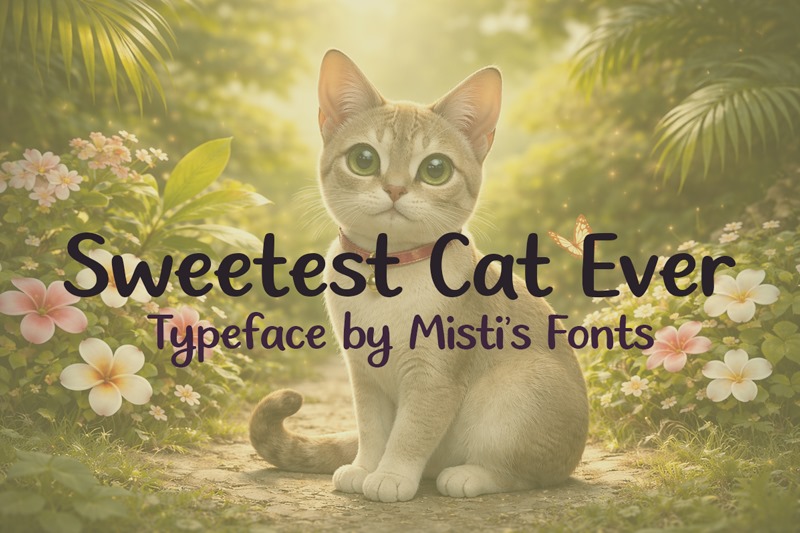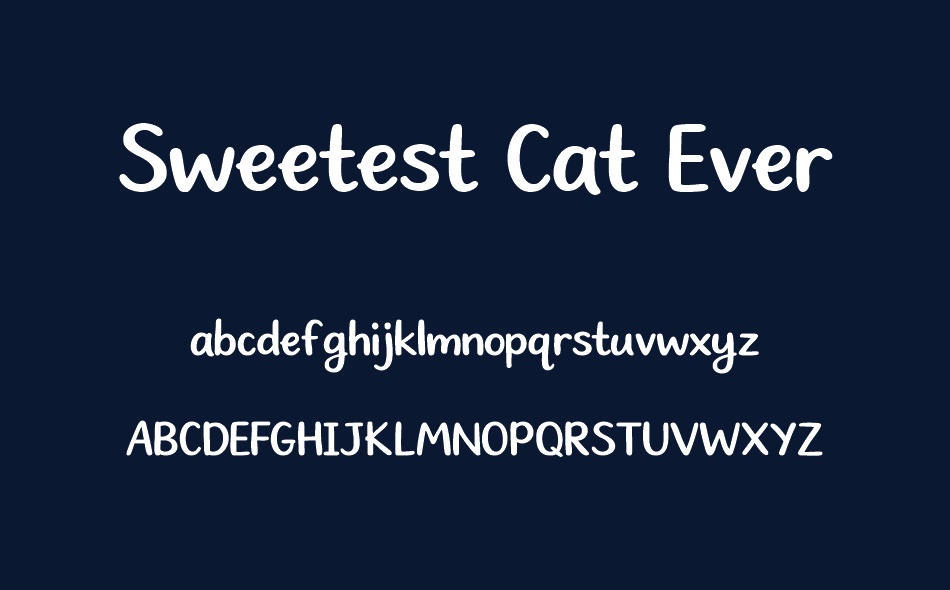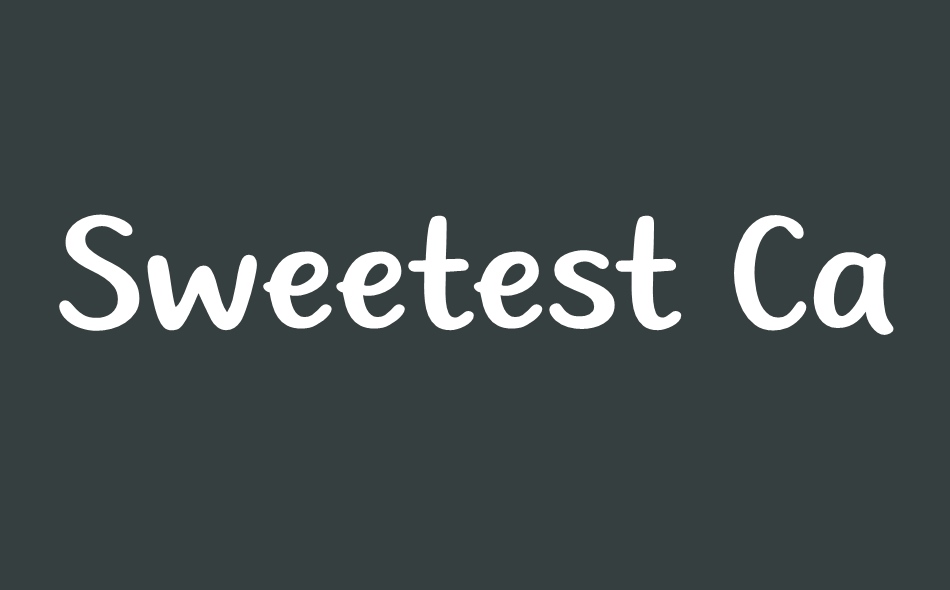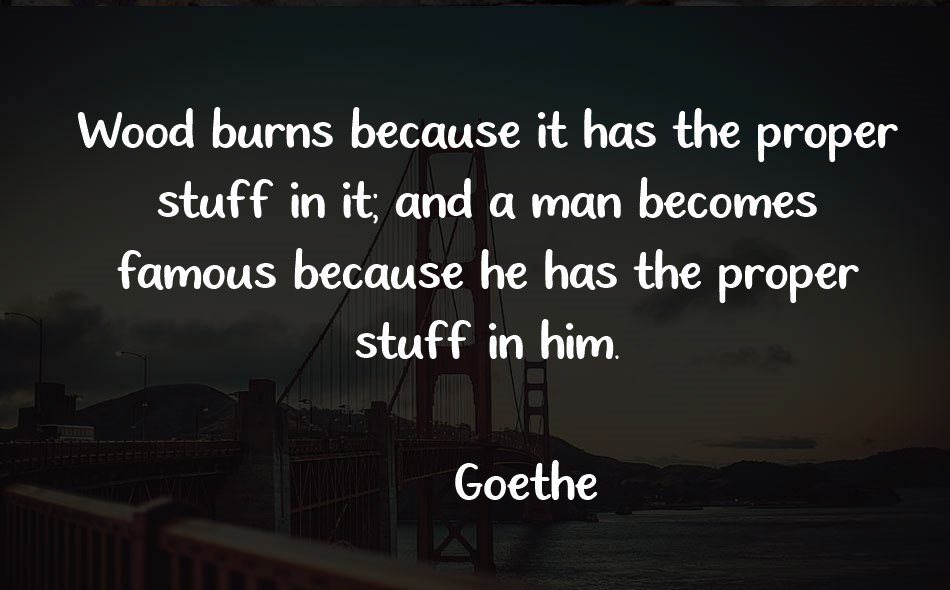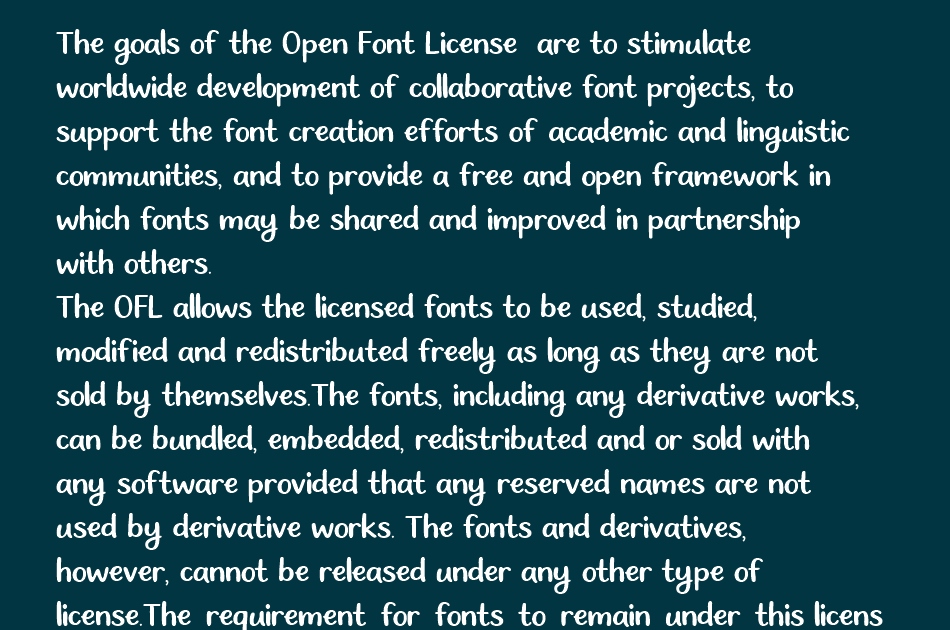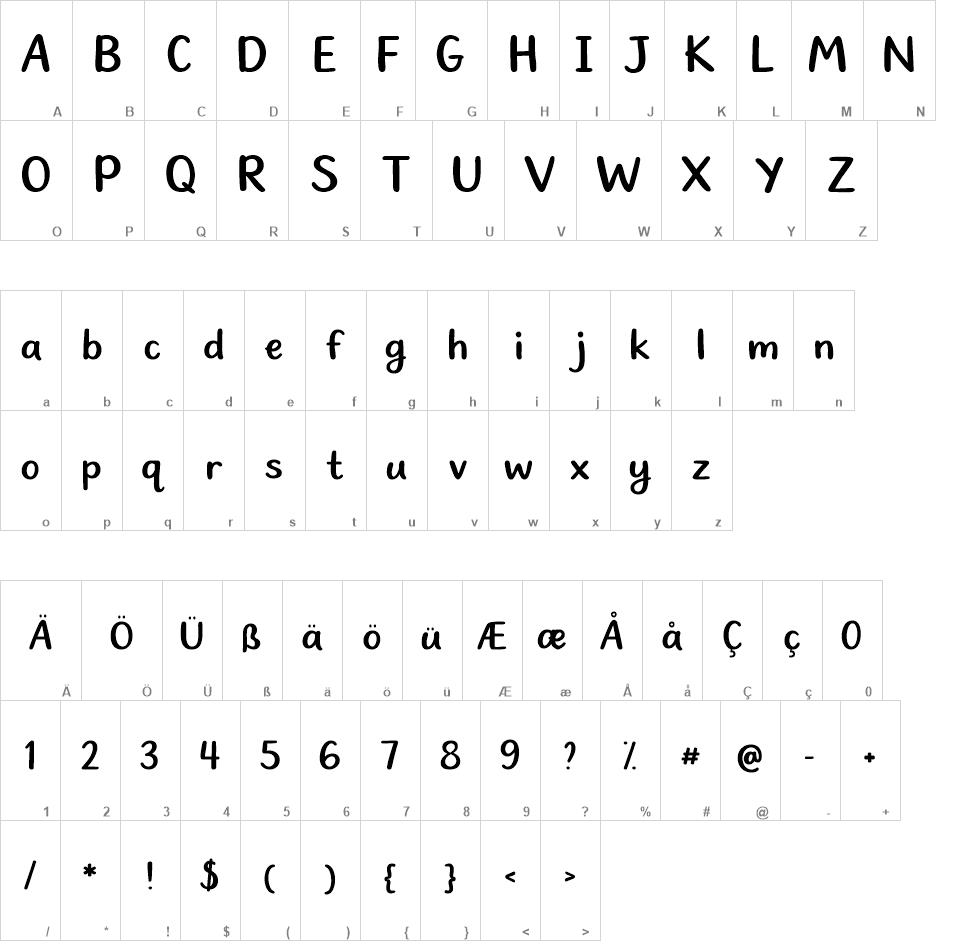
Sweetest Cat Ever font
Immerse yourself in the charming allure of Sweetest Cat Ever, a whimsically beautiful handwritten font that promises both sophistication and simplicity. Its delightful appeal is wrapped in casual, yet crisp characters that render every word effortlessly readable. Experience the warm, engaging tone it evokes, perfectly capturing the ease and authenticity of organic handwriting. Harmonizing a modernly minimalistic form with the timeless elegance of calligraphy, Sweetest Cat Ever is built to express and connect on a new level of visual aesthetics.